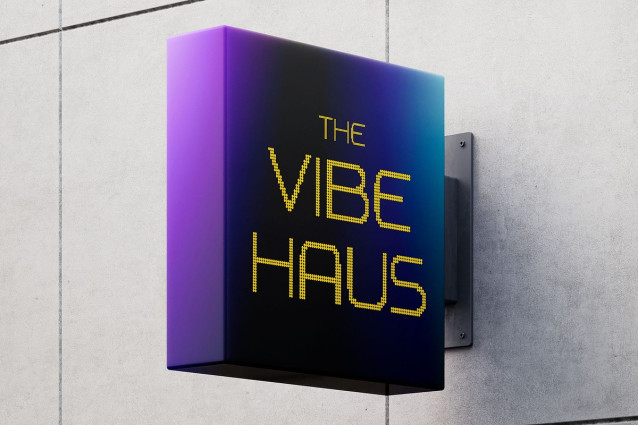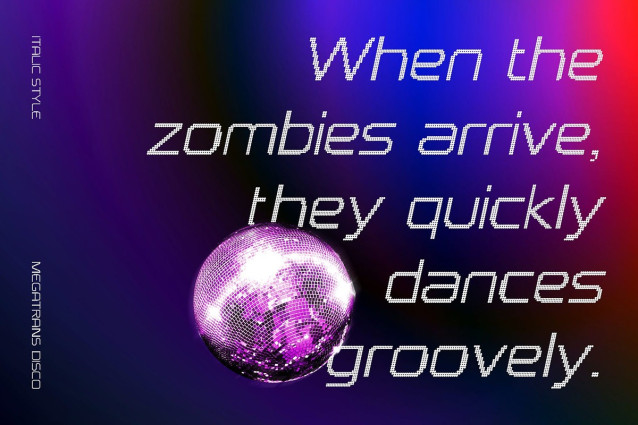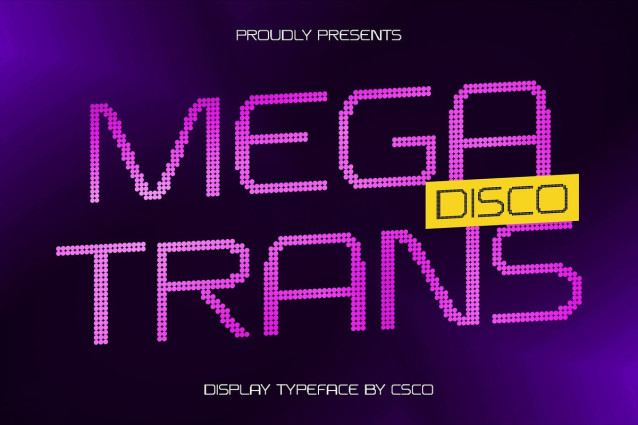
Megatrans Disco Font
Megatrans Disco Font is a modern sans serif font built on clean geometric shapes and a bold, symmetrical structure. Its precision and clarity convey a futuristic tone, making it ideal for contemporary design that values sharpness, structure, and modernity.
Futuristic Style Meets Expressive Display While Megatrans Disco’s minimalist structure is inherently modern, it takes on a more dynamic and expressive character when enhanced with disco-inspired effects. Layered with glitter, vibrant gradients, or reflective textures, the font transforms into an eye-catching, energetic display. These elements not only give the font a sense of movement but also enhance its visual rhythm, making it stand out in both print and digital media.
Energetic Visual Rhythm with Disco-Inspired Vibes By incorporating disco effects, Megatrans Disco transforms into an energetic, rhythmic typeface that grabs attention. These elements inject movement, fun, and boldness, turning it into a standout option for display purposes where impact is key.
Ideal for Pop Culture, Music, and Bold Branding Perfect for electronic music posters, party-themed visuals, or pop-culture branding, Megatrans Disco offers the perfect combination of futuristic design and disco energy. It’s a bold typographic choice for projects that demand excitement, vibrancy, and a forward-thinking visual identity.